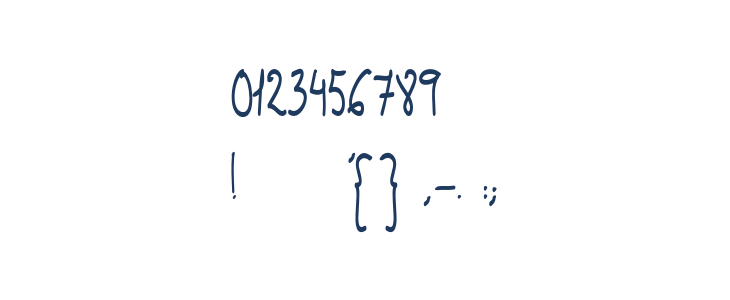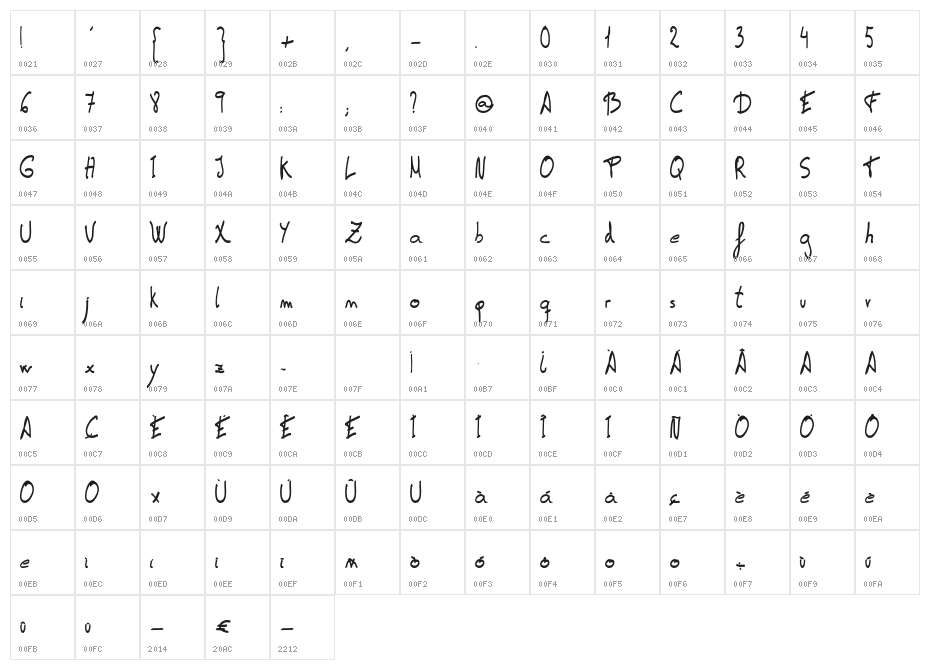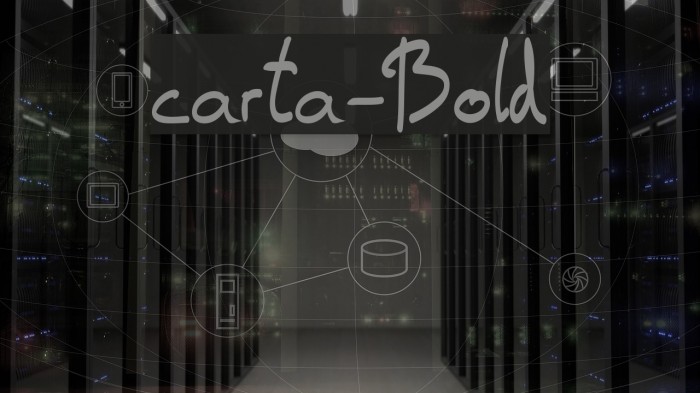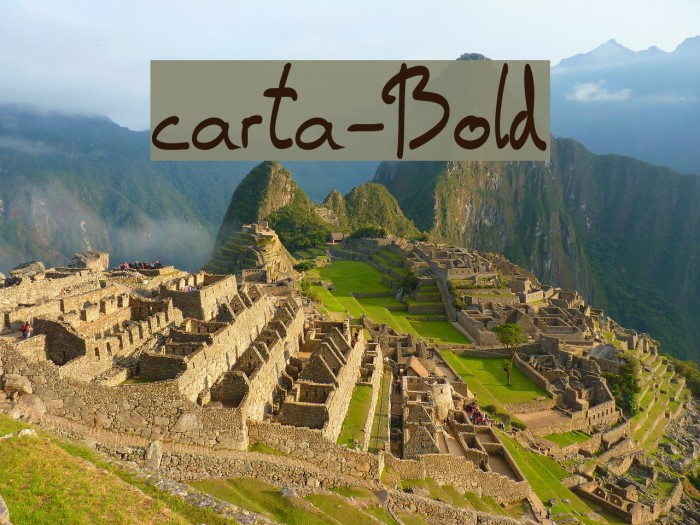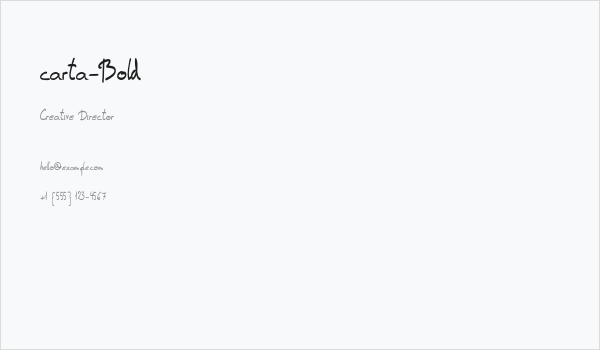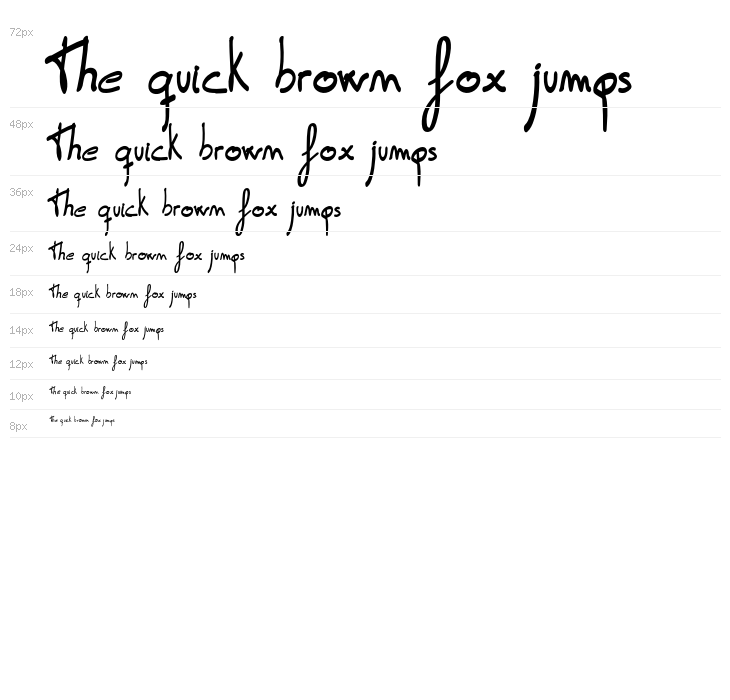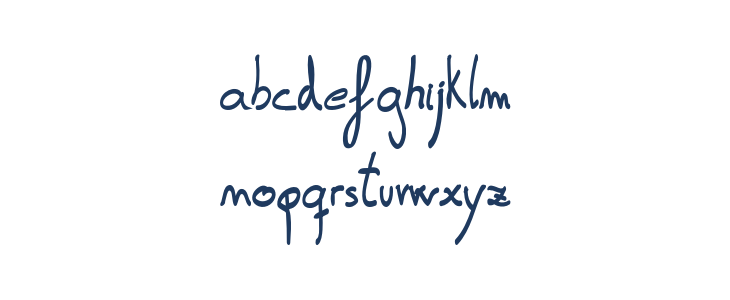
carta-Bold Font
carta-Bold Description
This font features a playful and informal handwritten style, characterized by its irregular strokes and casual appearance. The uppercase letters are bold and slightly slanted, giving them a dynamic feel, while the lowercase letters maintain a consistent flow with a touch of whimsy. Numbers and special characters follow the same playful aesthetic, making the font suitable for creative and informal contexts. The overall design is approachable and friendly, with a touch of spontaneity that adds personality to any text.